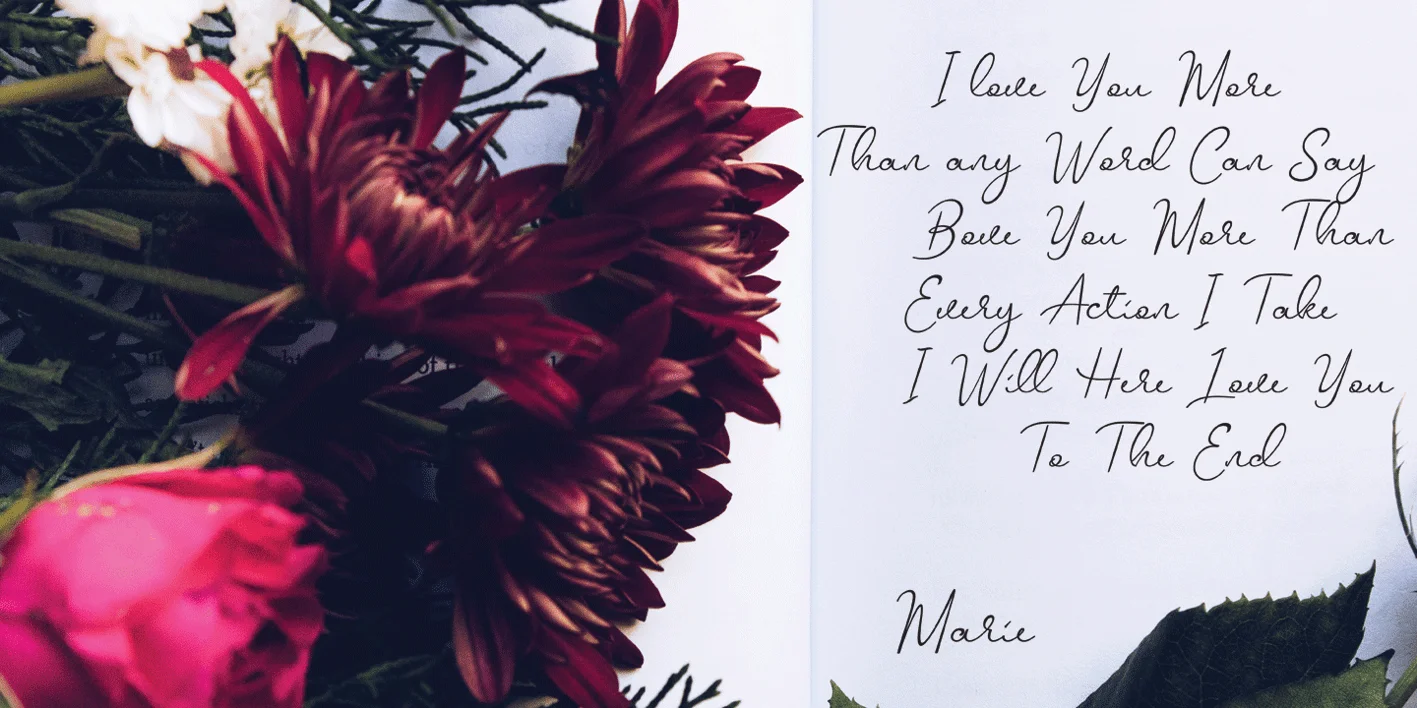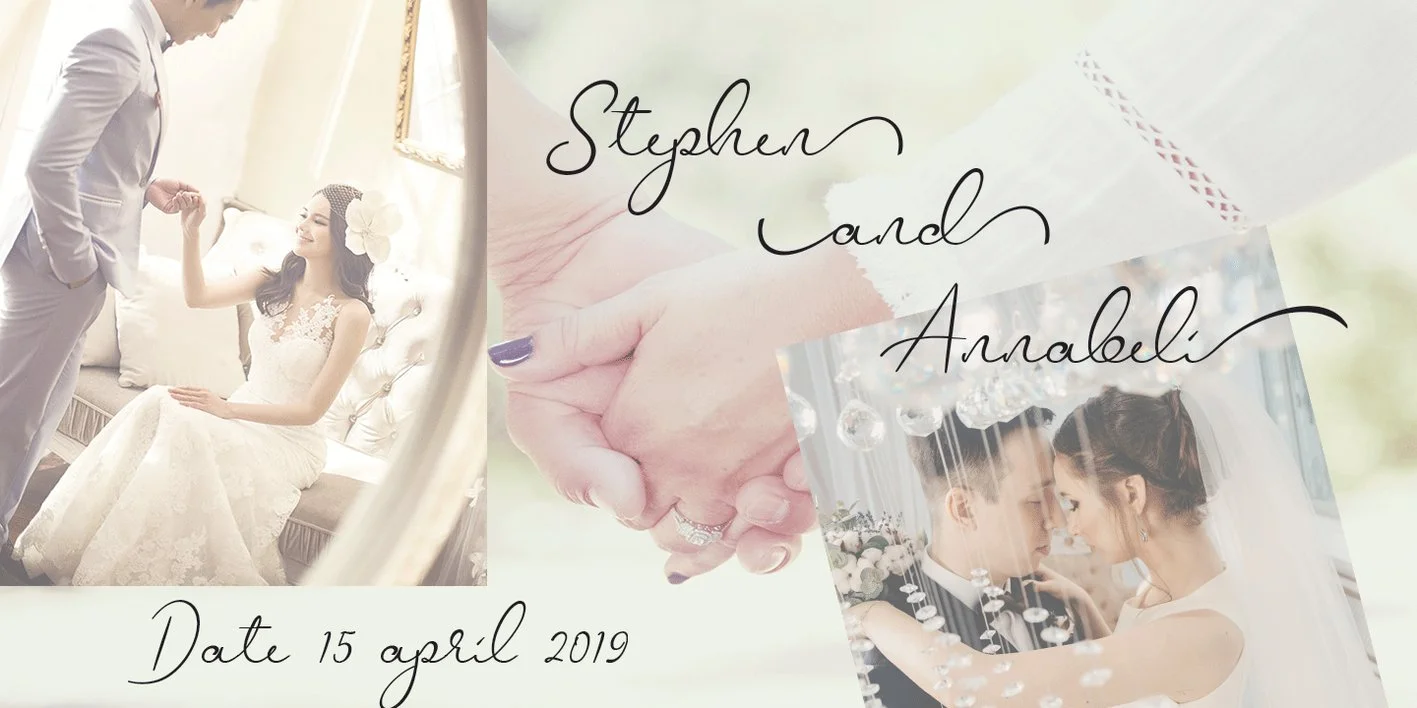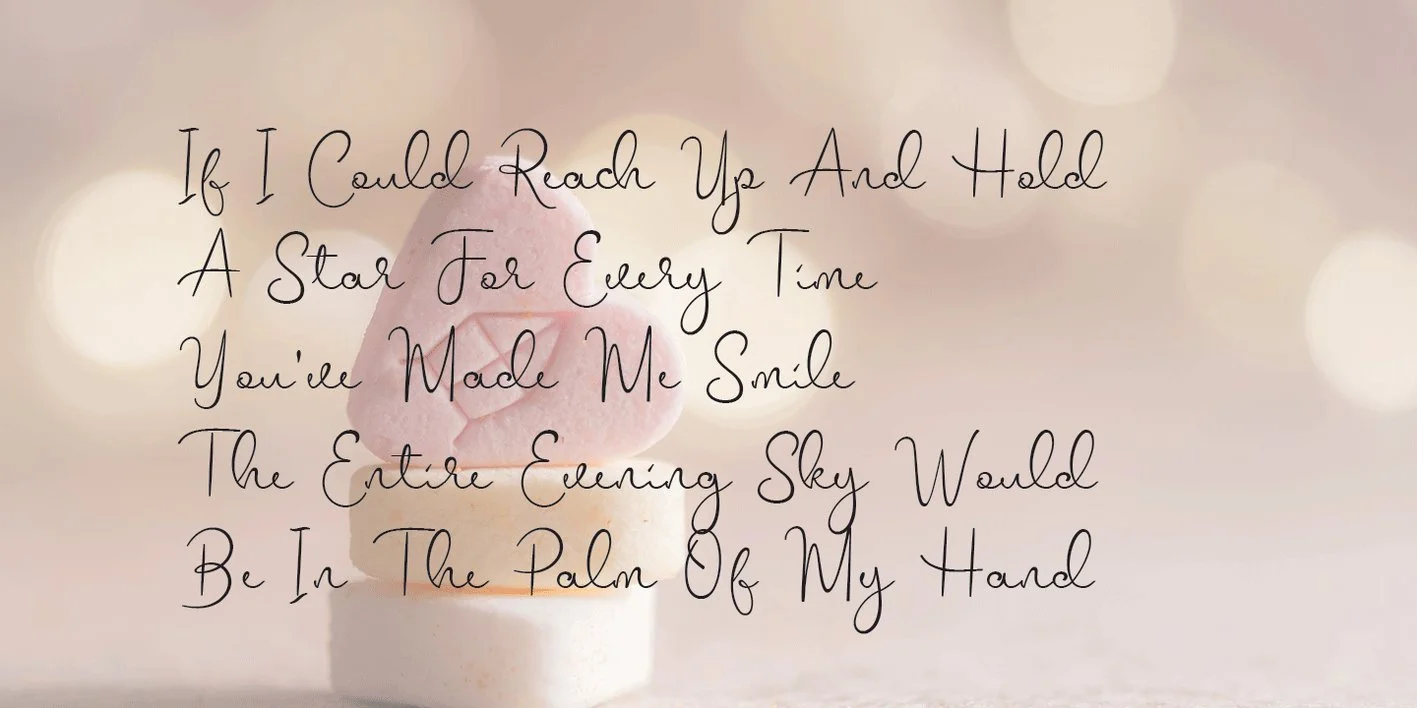
Mellinde Font
Typography shapes perception at a subconscious level. Mellinde leverages a confident voice that adapts to diverse briefs to make every composition feel considered. The typeface brings a versatile sensibility to a broad range of creative disciplines, with versatility across print and screen contexts that holds up whether the work is print-first or screen-first.
In practice, Mellinde proves particularly effective for brand identity systems, annual reports, packaging design, poster creation, signage systems. Designers reaching for it find that the type decisions feel resolved rather than laboured — a useful quality when client timelines are tight.
The range of applications extends to web design, product labels, advertising campaigns, editorial layouts. That breadth is deliberate: the proportions and spacing were stress-tested across a wide range of mock briefs before the typeface was finalised.
The proportions balance x-height, cap height, and ascender length to produce a face that reads confidently at body copy sizes without losing presence at display scale. Sidebearings were derived from visual rhythm testing rather than mathematical calculation alone.
Pairing Mellinde with a contrasting serif or a neutral grotesque gives mixed-format layouts a clear visual grammar without requiring constant size adjustments to establish hierarchy.
In-house creative teams at consumer brands find Mellinde a reliable choice for projects that demand both personality and restraint. The design avoids the self-conscious quirkiness that dates quickly, settling instead for considered distinctiveness that holds up over time.